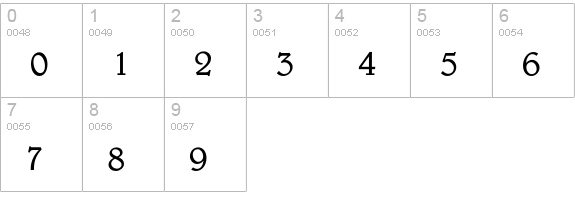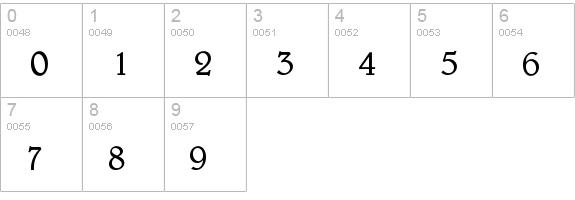
BelweEF-Light Font Details
BelweEF-Light is a refined, elegant variant in the BelweEF typeface family \xE2\x80\x94 well suited to elegant body text, refined sub-headings, and luxury branding.
BelweEF-Light font is a stylish and elegant typeface that exudes sophistication and modernity. Its sleek lines and timeless appeal make it the perfect choice for a wide range of design projects, from branding to editorial design. The light weight of this font adds a touch of delicacy and refinement to any text, making it ideal for creating a sense of sophistication and elegance. What sets BelweEF-Light font apart is that it is available for free download at FontsMarket.com. This means that you can easily access this beautiful font without having to worry about any additional costs. With its versatile and eye-catching design, BelweEF-Light font is sure to elevate your projects and leave a lasting impression on your audience. Whether you are working on a logo, website, or print materials, BelweEF-Light font's clean and modern look will help you achieve a polished and professional finish. Download this stunning font today and add a touch of sophistication to your designs.